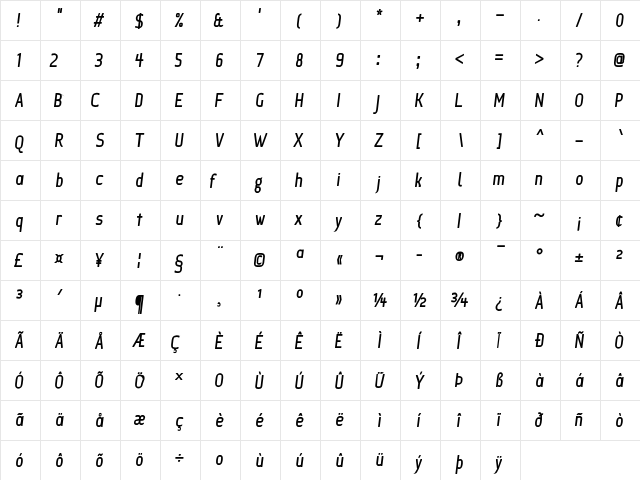
Ice Sans Compressed BoldItalic
| Designer | Wolf Lambert |
Ice Sans Compressed offers clean, dependable letterforms without strong stylistic allegiance, making it a practical choice for designers who need flexibility. The slanted form adds forward momentum and visual energy. The heavy weight commands attention and anchors typographic hierarchies.
Pro Tip: Use Ice Sans Compressed for emphasis, pull quotes, and subheadings where its slanted energy can add rhythm to the layout.